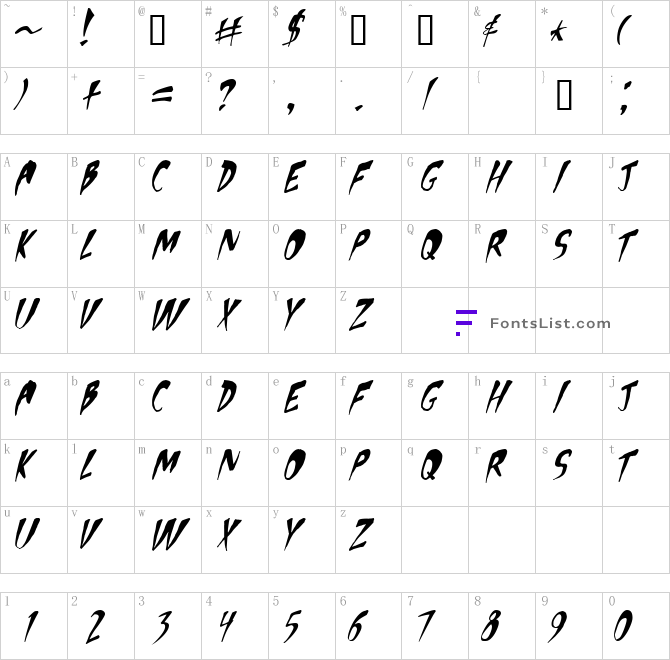
- Font Name:Apocalypse
Apocalypse-1.ttf is a very beautiful artistic font, Apocalypse-1.ttf is widely used in the design and printing of various books and pictures,Apocalypse-1.ttf has a strong visual impact,Apocalypse-1.ttf is a commonly used font in newspapers, magazines and books, and is used in posters, e-commerce Poster design, store design, logo design, font design and other fields.Apocalypse-1.